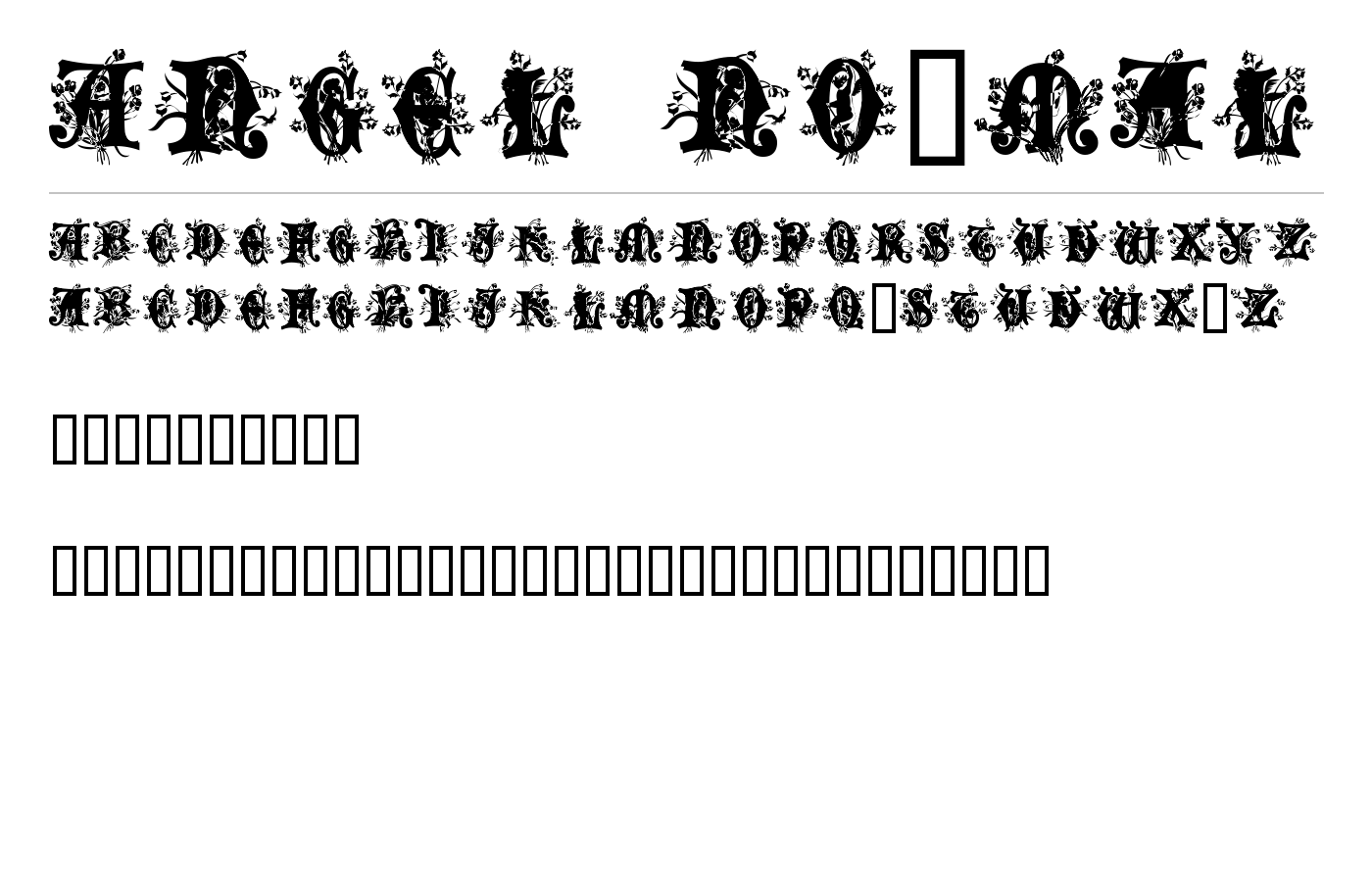
Angel Normal Font is a decorative serif typeface with a Gothic-inspired style, featuring elaborate floral embellishments that weave through thick, bold letterforms. Its striking and ornamental design makes it ideal for creative headlines, logos, and artistic projects where a dramatic, vintage, or fantasy mood is desired. This font works best in display settings rather than body text due to its intricate details and strong visual impact.
Angel Normal Font